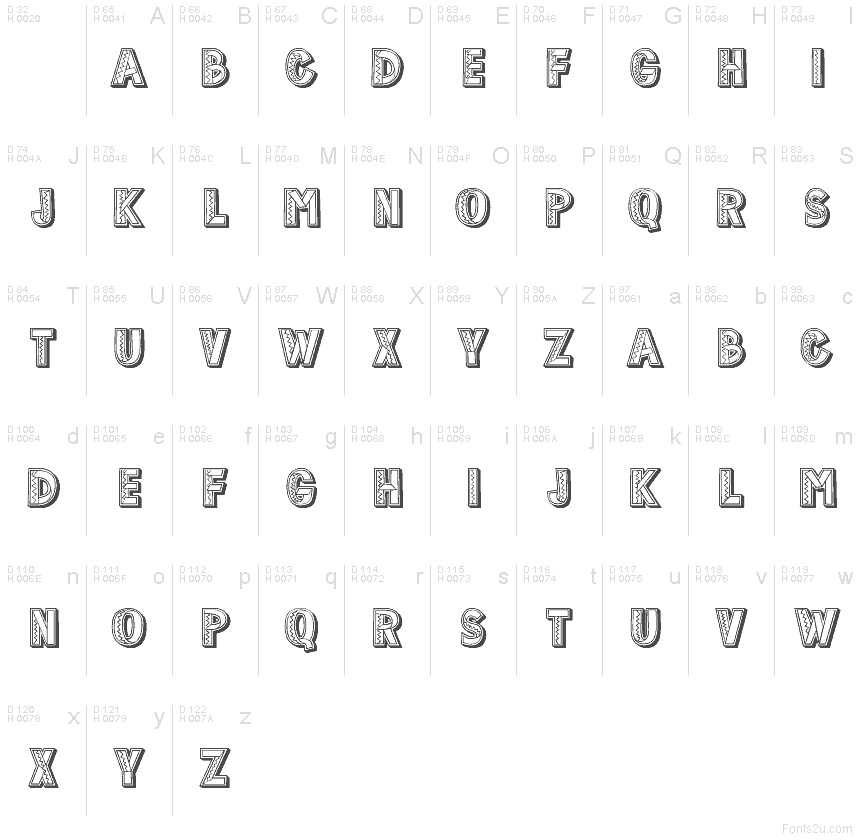
Birthday Regular
Birthday font by Vladimir Nikolic is a free decorative display typeface. Big block letters wear thick inky outlines and a lively zigzag fill, like party bunting strung inside each stroke. The forms feel sturdy yet playful, inviting bright color and drop shadows to crank up the confetti energy without losing legibility.
Using Birthday, your headlines snap on party invitations, kids’ posters, classroom signs, event banners, cupcake toppers, greeting cards, and cheerful social posts. The steady rhythm and bold outline hold up at large sizes and survive busy backgrounds. Pair this free font with a simple sans serif for body text, and keep Birthday large with generous spacing to let the festive pattern breathe.